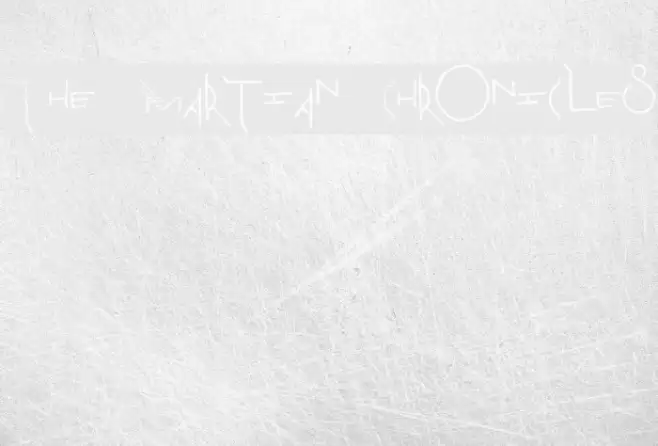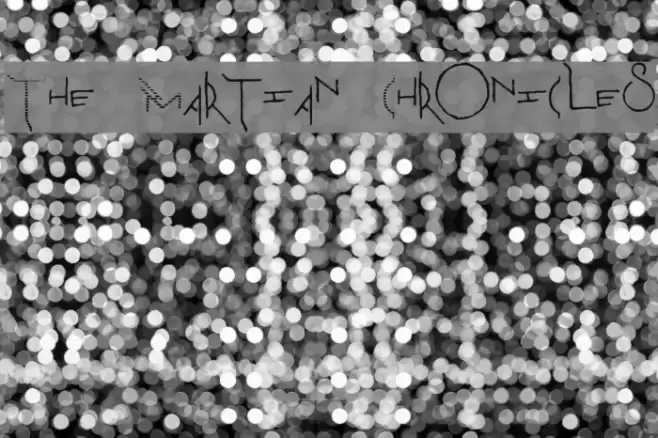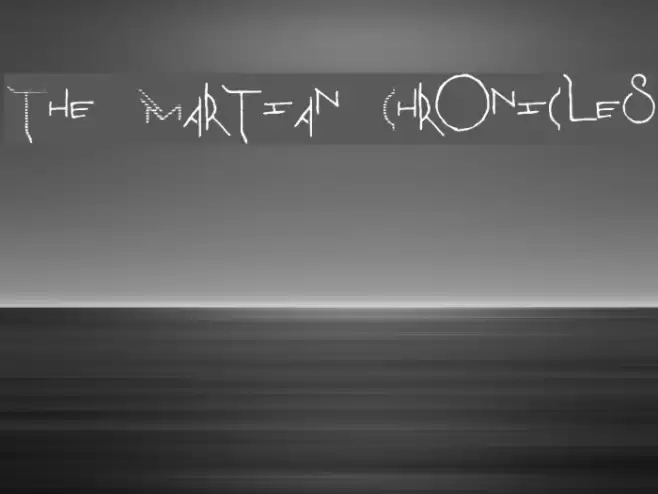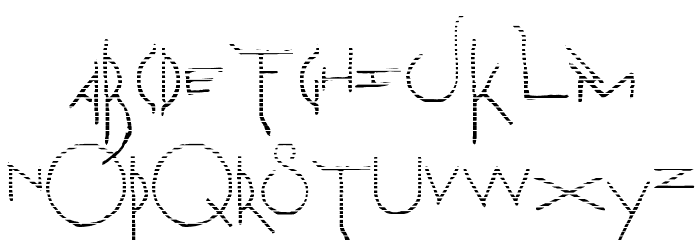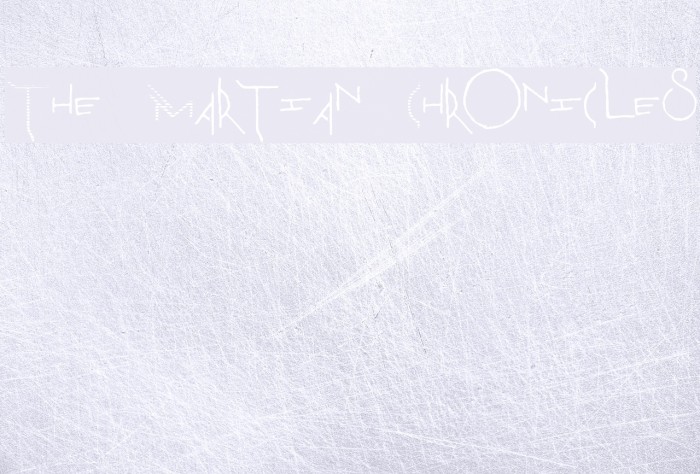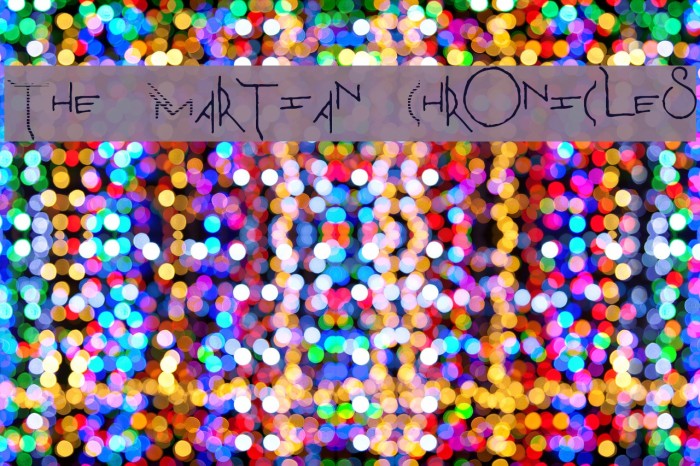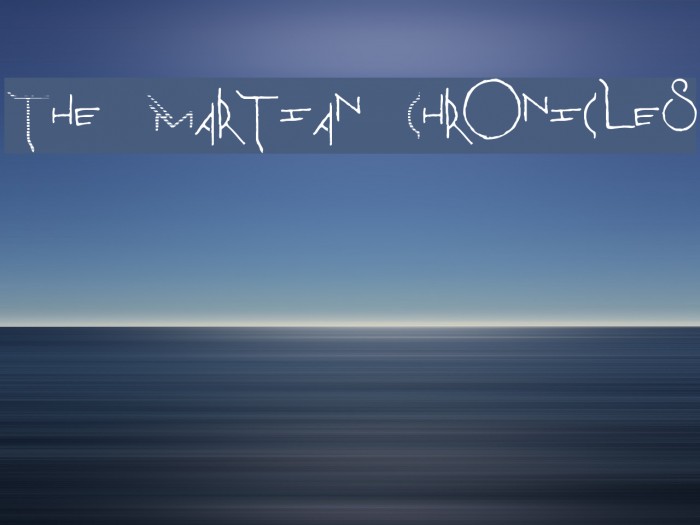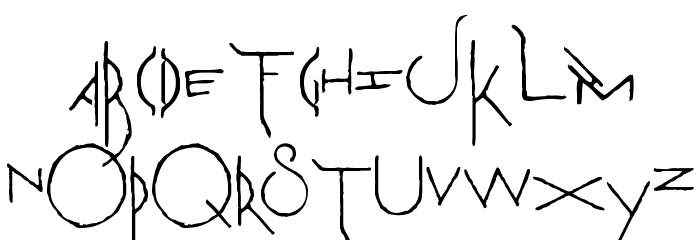
The Martian Chronicles Font
The Martian Chronicles Description
This font exhibits a unique, futuristic style with elongated and angular letterforms, reminiscent of ancient scripts with a modern twist. The characters are thin and have a hand-drawn quality, featuring irregular strokes and varying line thicknesses that add a dynamic and artistic flair. The uppercase letters are particularly distinctive, with some characters incorporating geometric shapes and unusual angles. The lowercase letters maintain the same aesthetic, ensuring consistency throughout the typeface. The numerals and special characters follow the same design principles, making the font versatile for creative projects.
A futuristic, angular font with a hand-drawn, artistic style from Uncategorized fonts.
- Proposed Projects: Ideal for science fiction book covers, movie posters, video game titles, and any project requiring a futuristic or alien aesthetic.
- Overall Style: Futuristic, Artistic